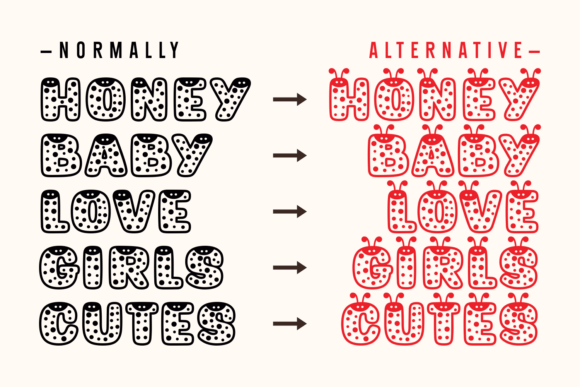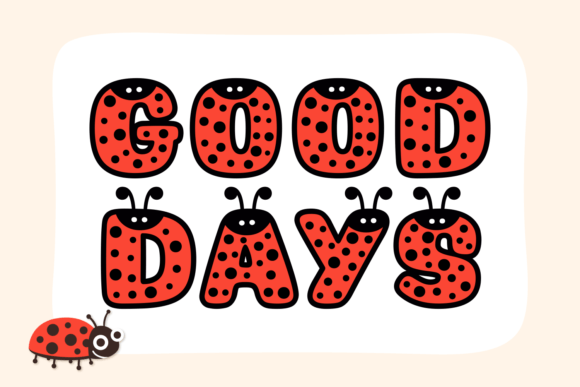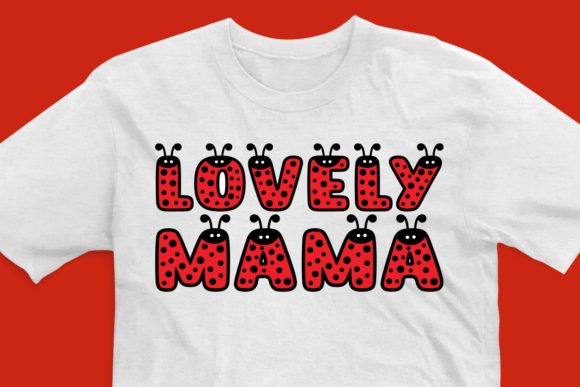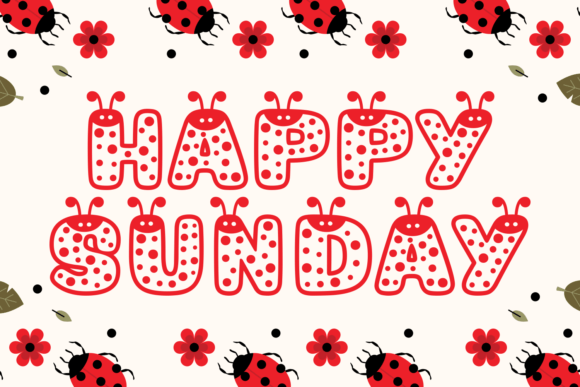
Enter Cute Lady Bugs Font, the adorable decorative font that’s sure to brighten up your day and typography designs. With its lovely ladybug dots and charming antennae, this font is perfect for spring-themed projects, cards, kids’ t-shirts, invitations, signage, and crafting projects. Its PUA encoding allows designers to easily access all the glyphs, making it a valuable addition to any design toolkit.
Cute Lady Bugs Font Key Features
- Character Set: The font includes a wide range of characters, including uppercase and lowercase letters, numbers, punctuation marks, and special symbols, making it suitable for various applications.
- Unique Characteristics: The font features cute and playful ladybug designs, making it ideal for children’s books, nursery decor, and other projects that require a whimsical touch.
- Style Options: The font comes in 3 different styles: Solid, Outline, and Fill, allowing designers to choose the perfect look for their project.
Cute Lady Bugs Font Review
At first glance, the Cute Lady Bugs Font caught my eye with its playful and whimsical design. ✨ The font is perfect for adding a touch of sweetness to children’s books, nursery decorations, or even food packaging. The rounded edges and soft lines give it a charming and approachable feel.
Some of the strengths of this font include:
- High-quality design: The font is well-crafted and free from any major issues.
- Customizability: The font can be easily resized and manipulated to fit various design needs.
- Unique aesthetic: The ladybug design adds a distinctive touch to any project.
- Limited use cases: The font may not be suitable for formal or professional designs, such as business reports or academic papers.
- No bold or italic versions: Users may need to create custom variations to achieve the desired effect.
- May not be readable at small sizes: The font’s delicate design may become difficult to read when scaled down.
Overall, I would give the Cute Lady Bugs Font 3.5 out of 5 stars. While it excels in its unique aesthetic and customizability, its limitations may make it less suitable for certain projects. Nevertheless, it’s a great choice for designers looking to add a touch of whimsy to their work.
The Cute Lady Bugs Font is perfect for:
- Summer-themed designs and graphics
- Whimsical and playful branding and marketing materials
For the most effective use of the font, keep the design simple and colorful to match the playful and cute nature of the font.